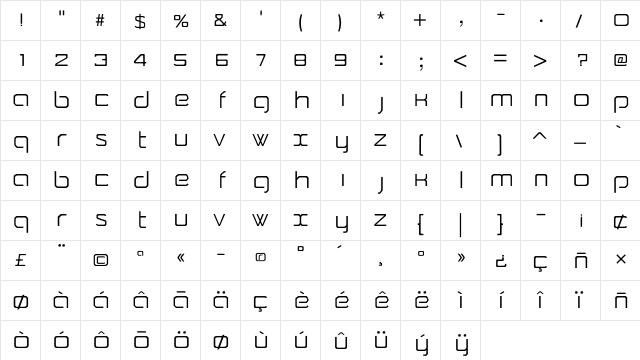
Camomile Regular
Design Context for Camomile Typeface
Camomile is a composed and adaptable typeface that performs quietly and consistently across a wide range of design contexts.